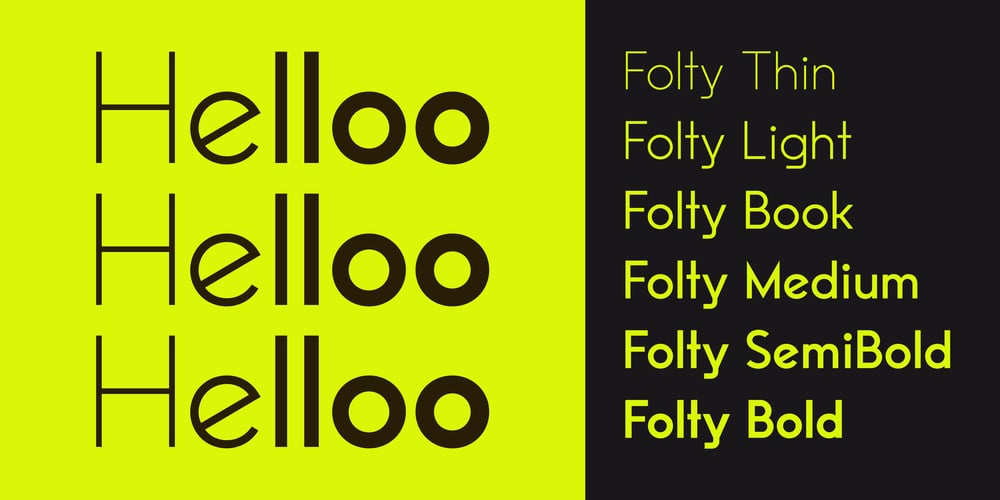
Folty Font Family was designed by Deni Anggara and published by Degarism Studio. Folty contains 6 styles and family package options. Folty Typeface is a display based an a geometric sans serif with unique characters and has a sharp vertex. Folty was inspired by Modern graphic design and contemporary typeface. The family contains 6 weights from Thin to Bold good for advertising, packaging, editorial and publishing, logo, branding, music software, etc.